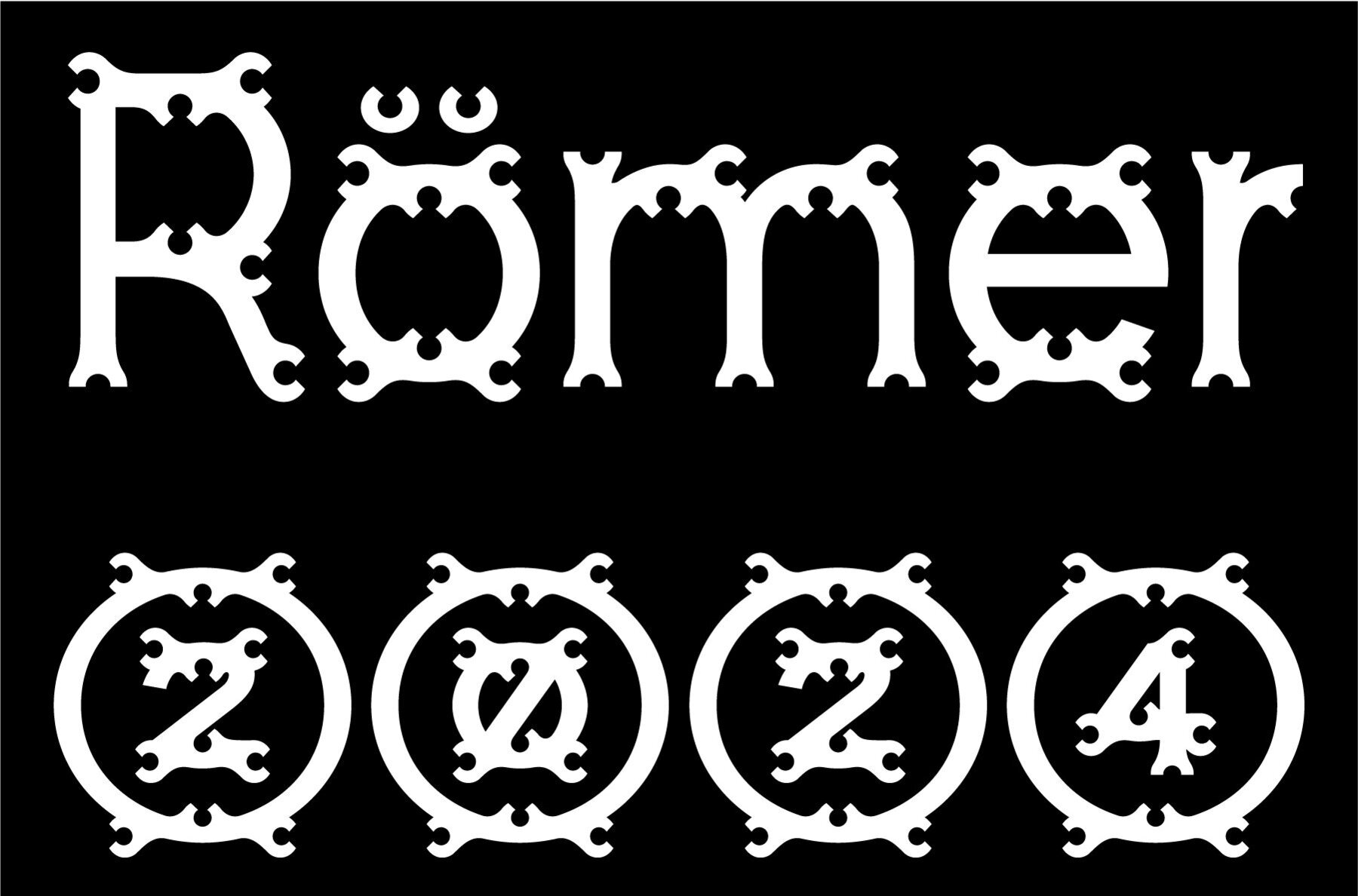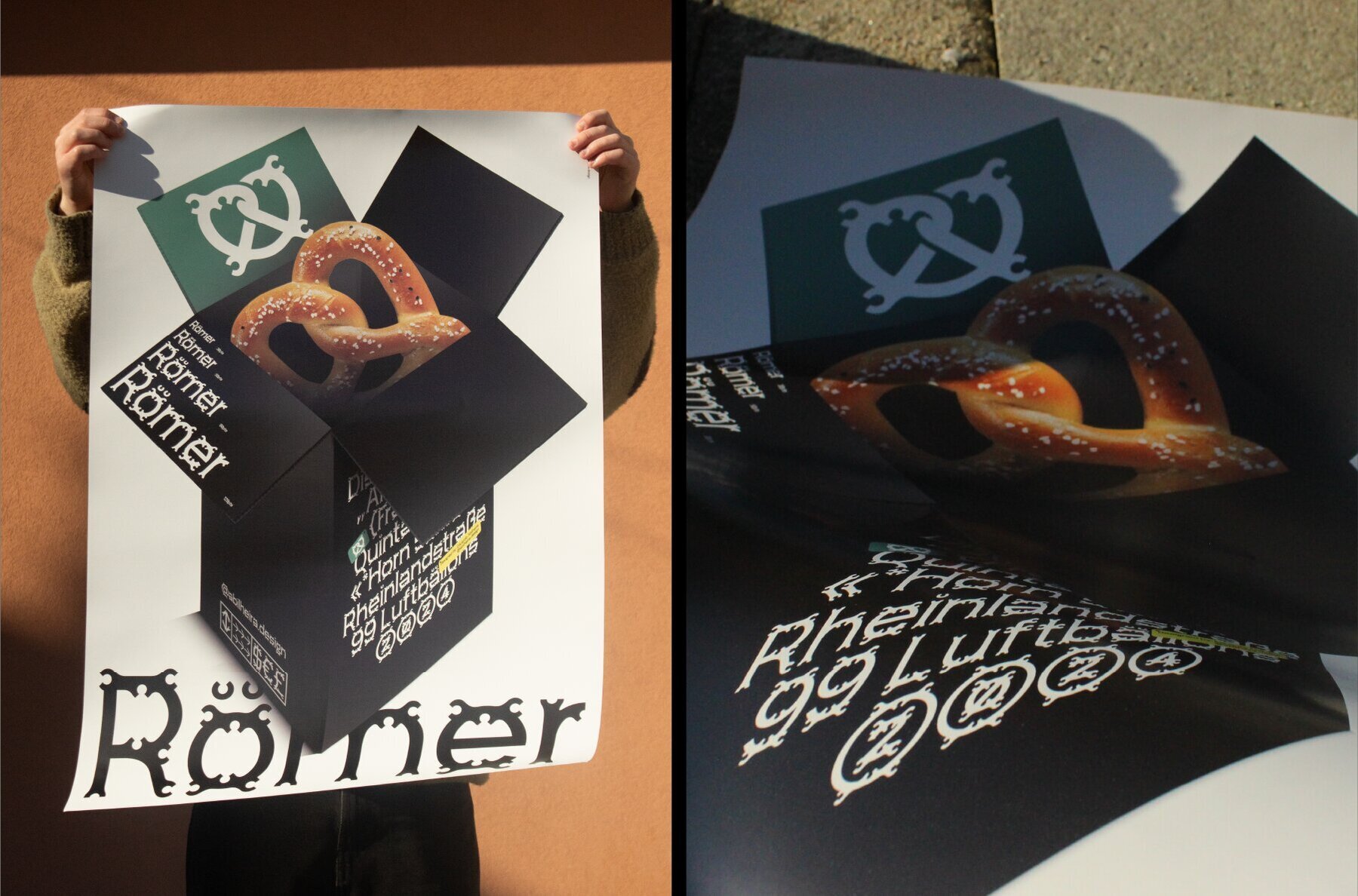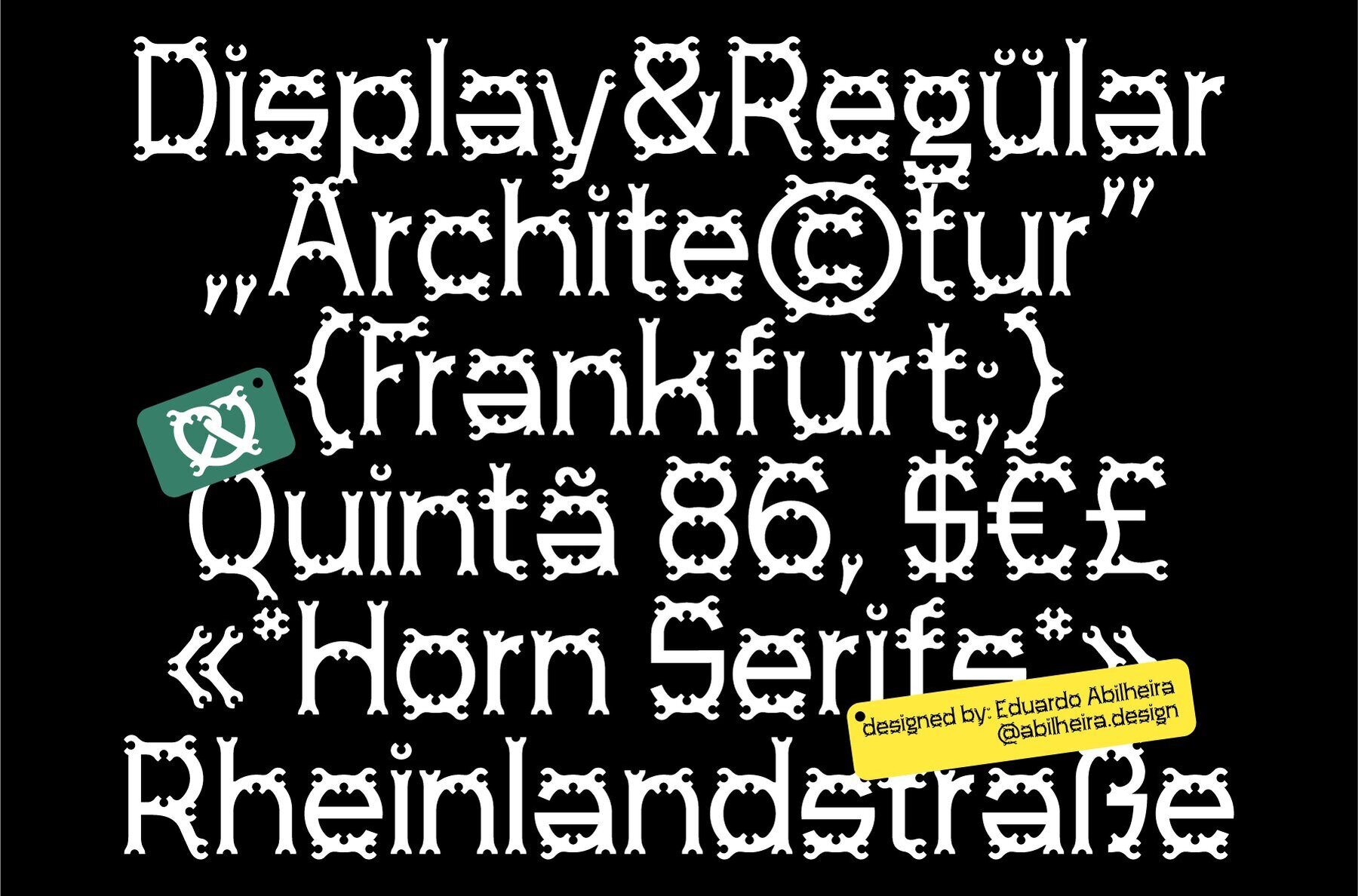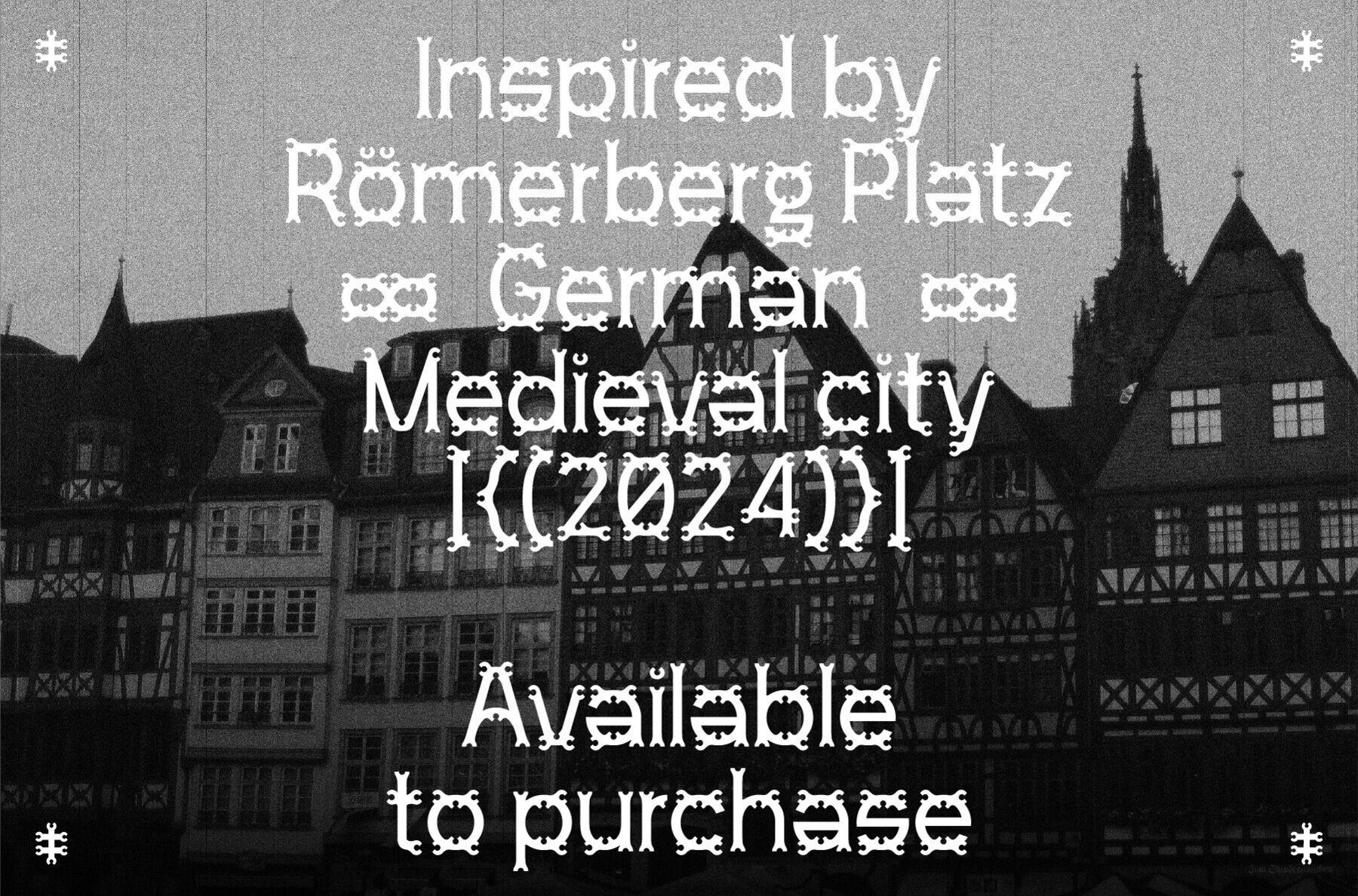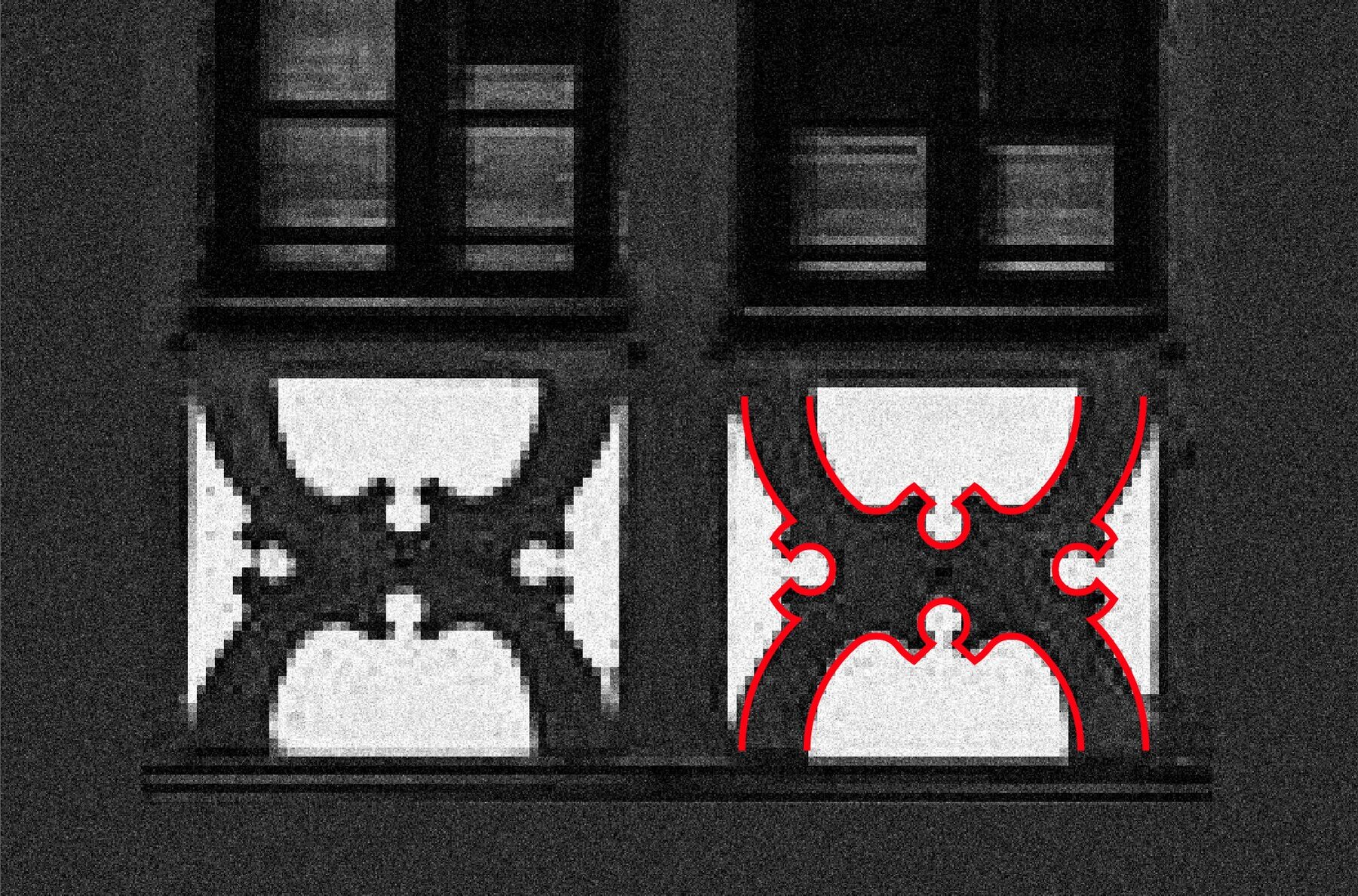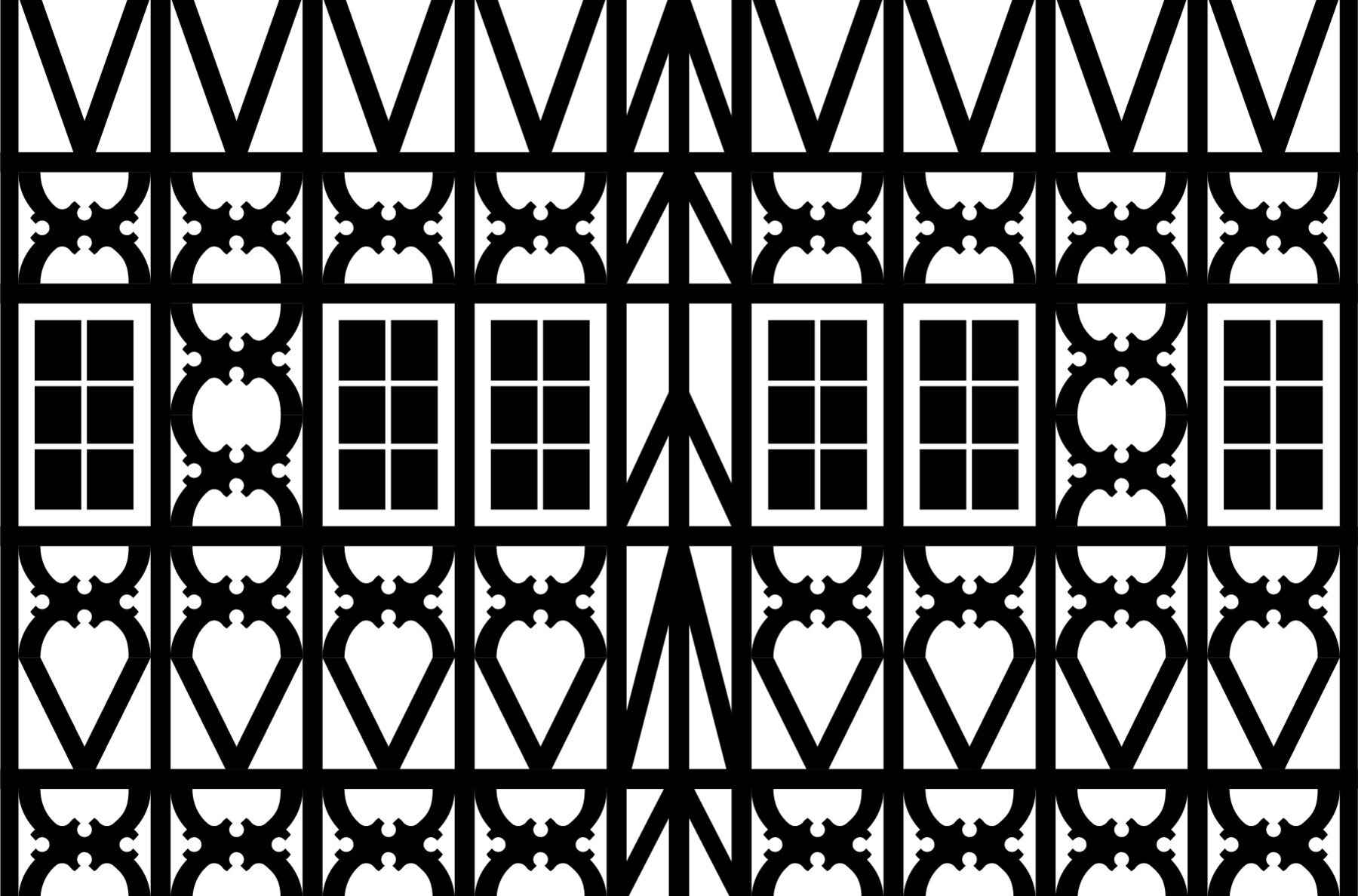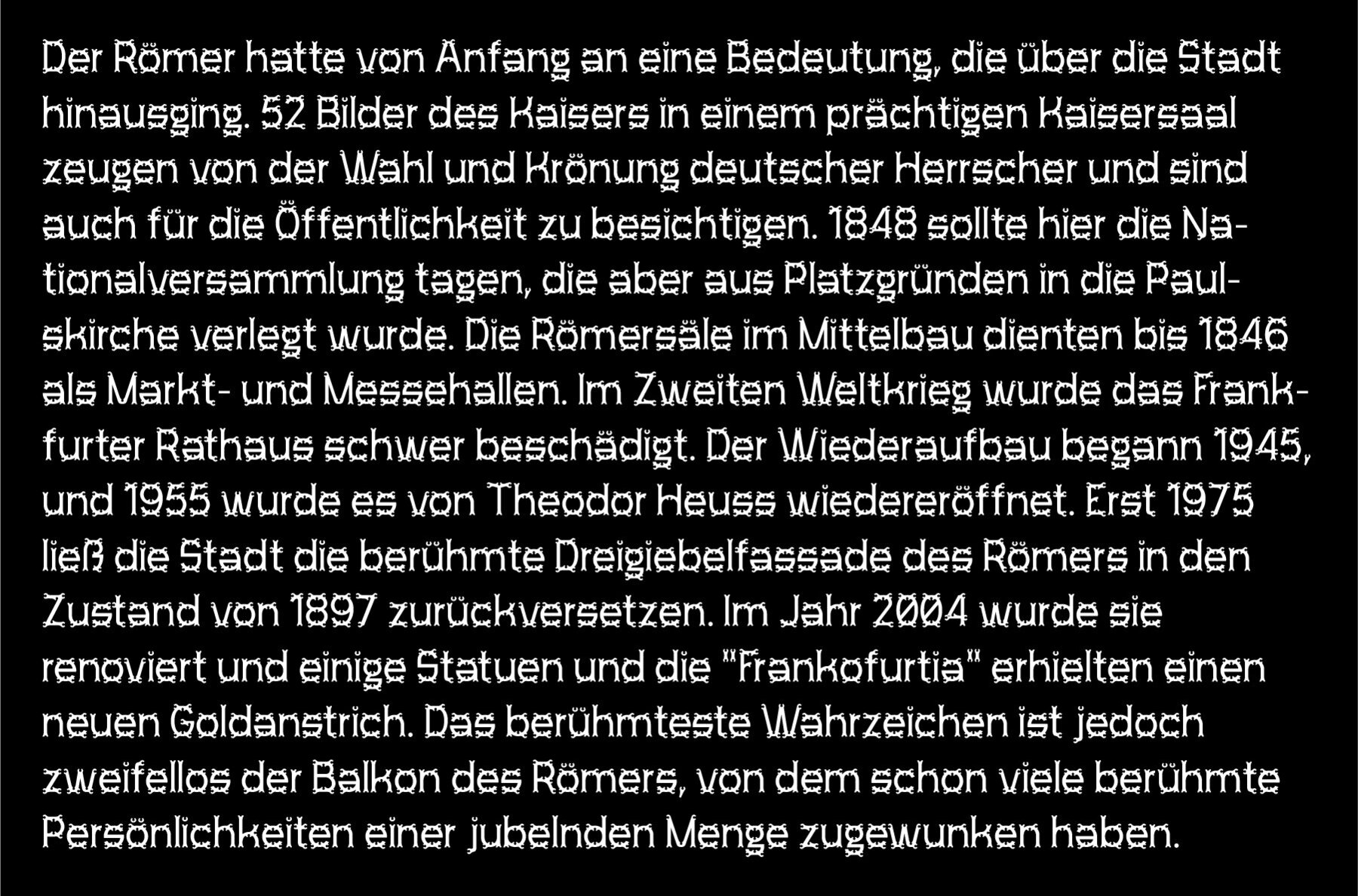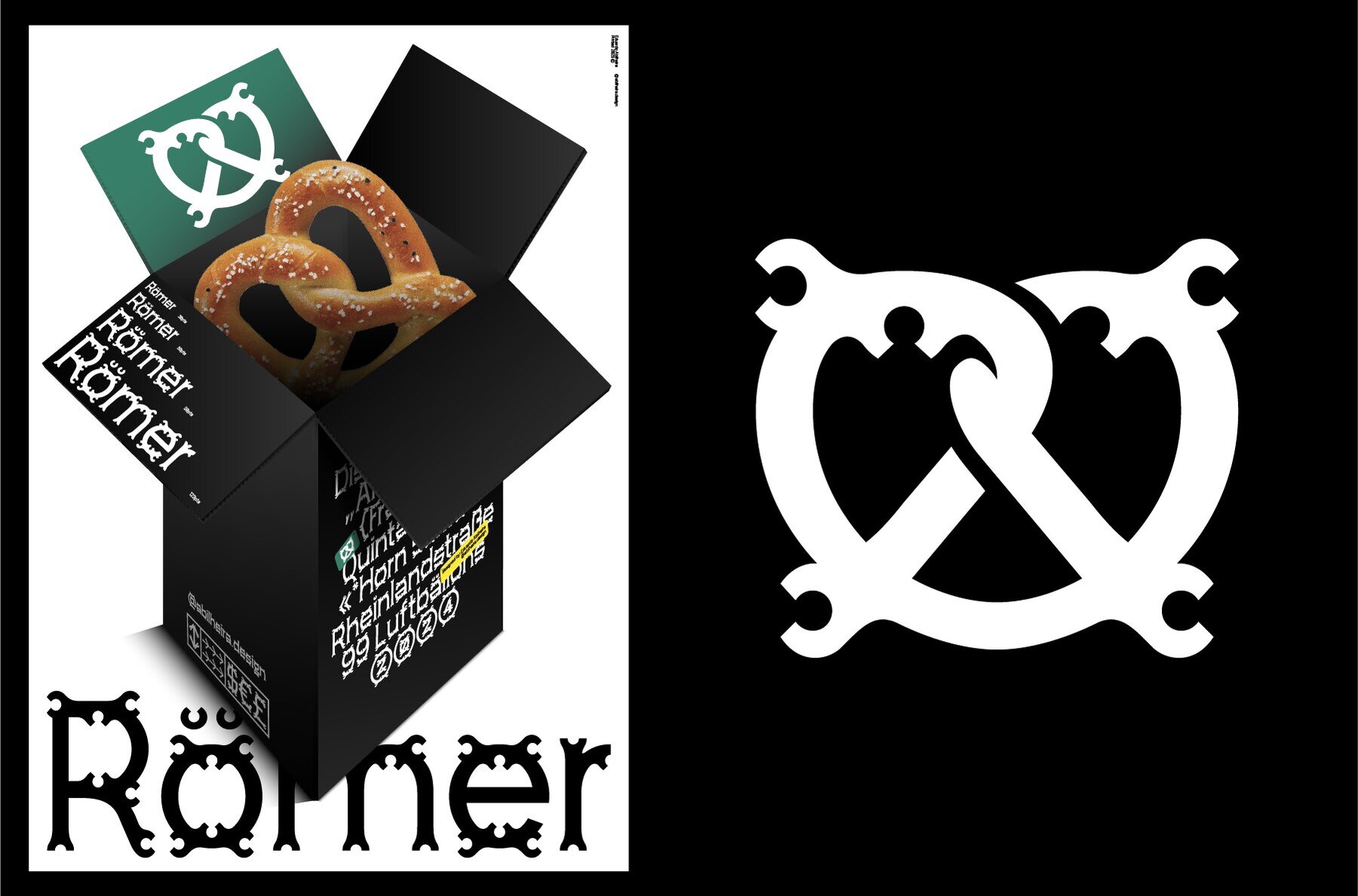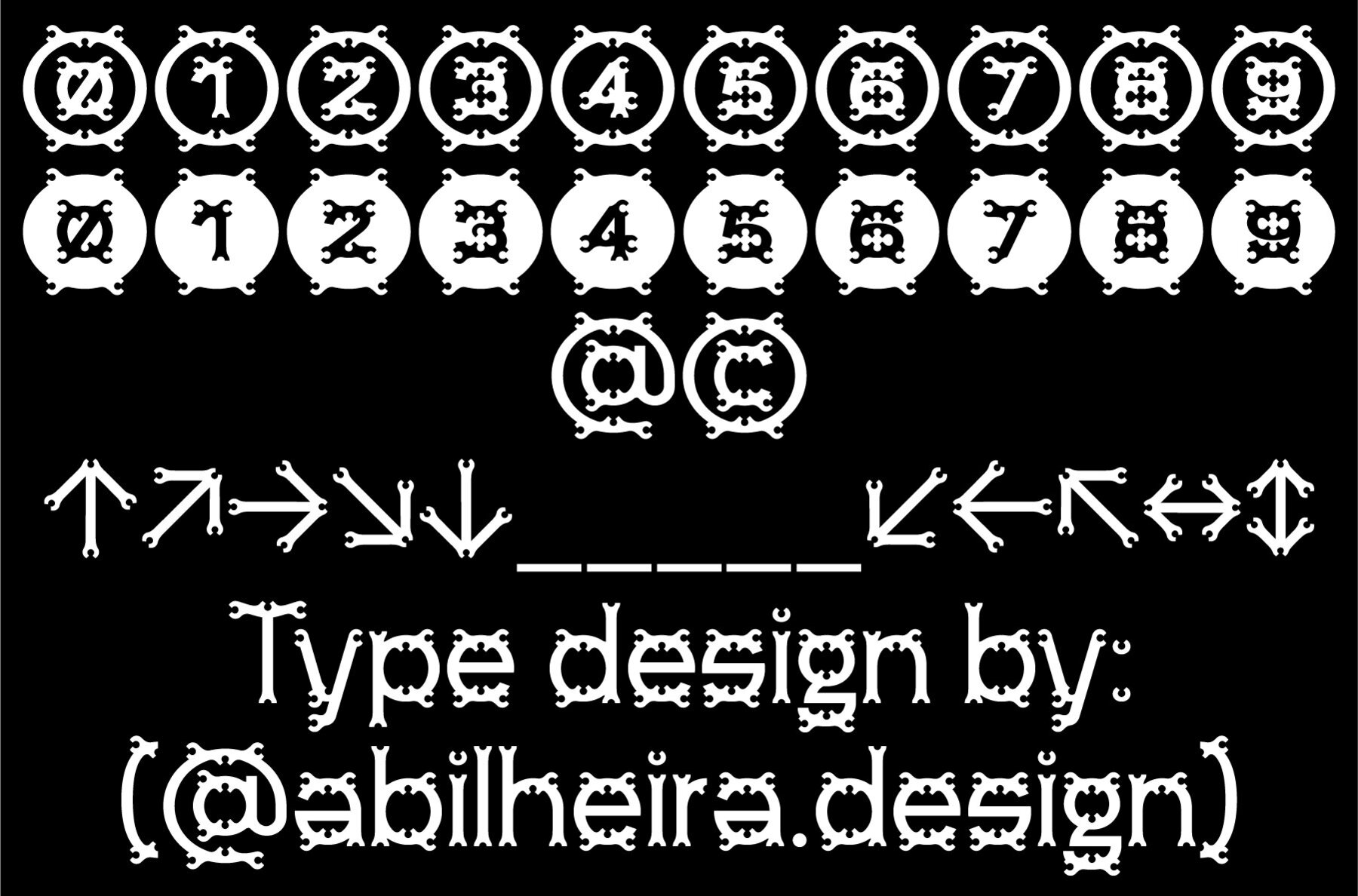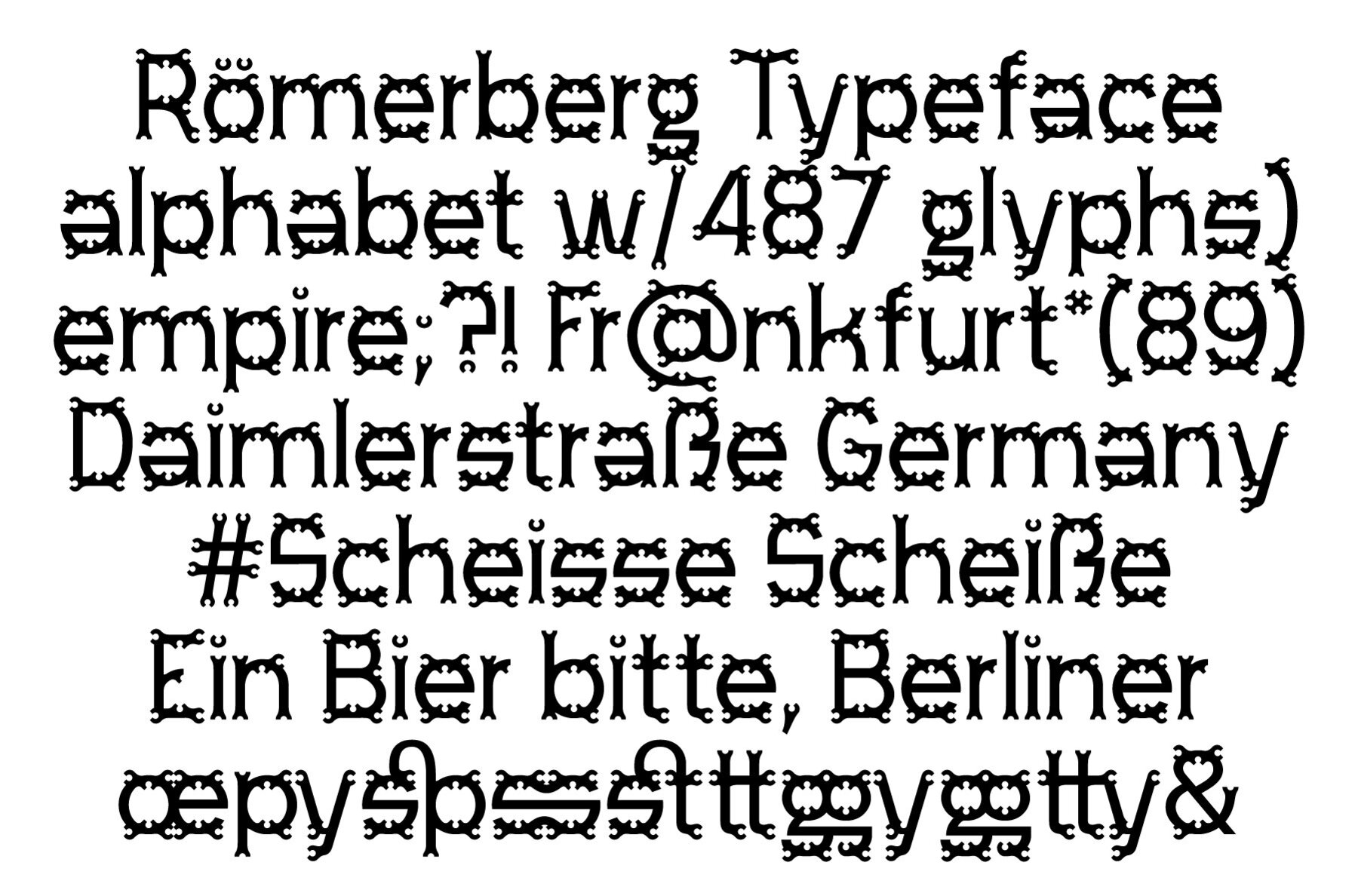
AT-Römer Font
Romer Regular
Inspired by the medieval building Römer characteristic german architecture,more precisely romerberg platz situated in Frankfurt am Main. It all started with the letter (x), which is the piece that can be seen as it is in the wood parts of their architecture. With high-contrast letterforms, sharp kind of serifs, and with 488 glyphs, gives the medieval vibe present in German architecture and a certain resemblance to mechanics, english keys, molds, and iron parts. It's perfect for poster designers that look for something more peculiar, title and logo designs, and ofc...your mechanics clients!AT-Römer - A MODERN DECORATIVE DISPLAY TYPEFACE